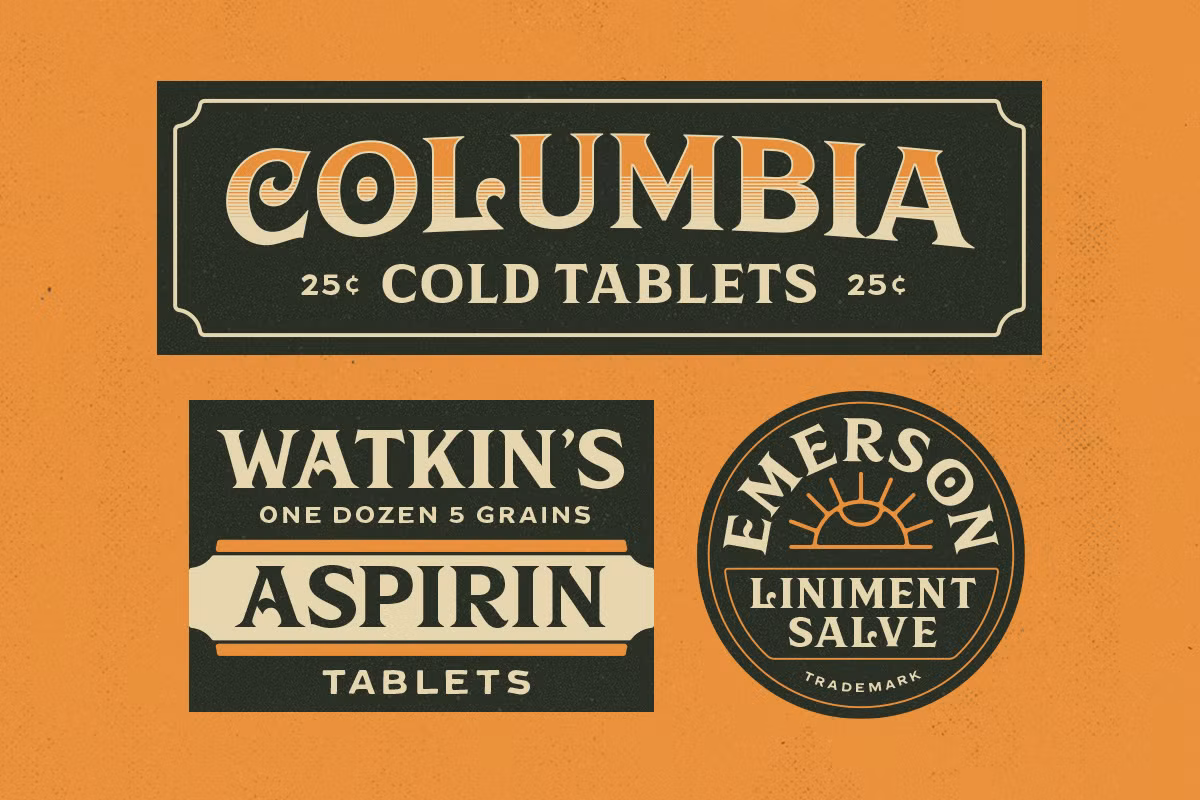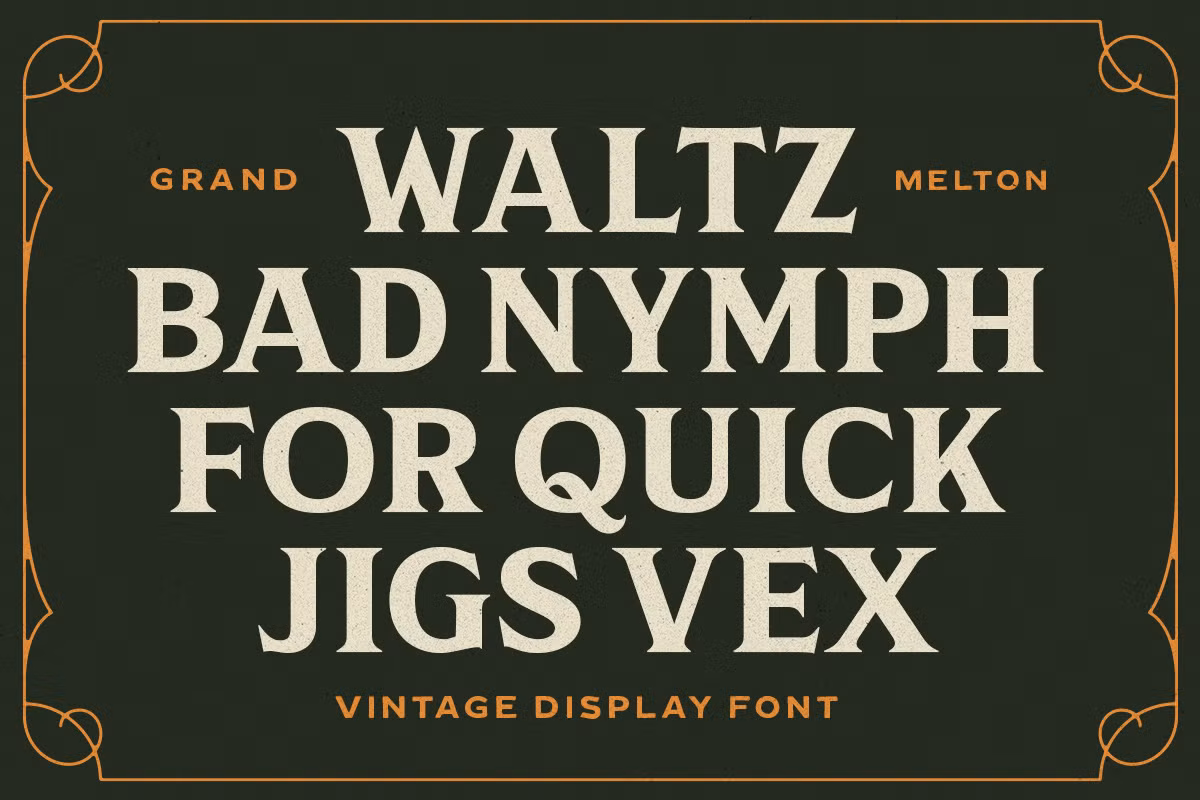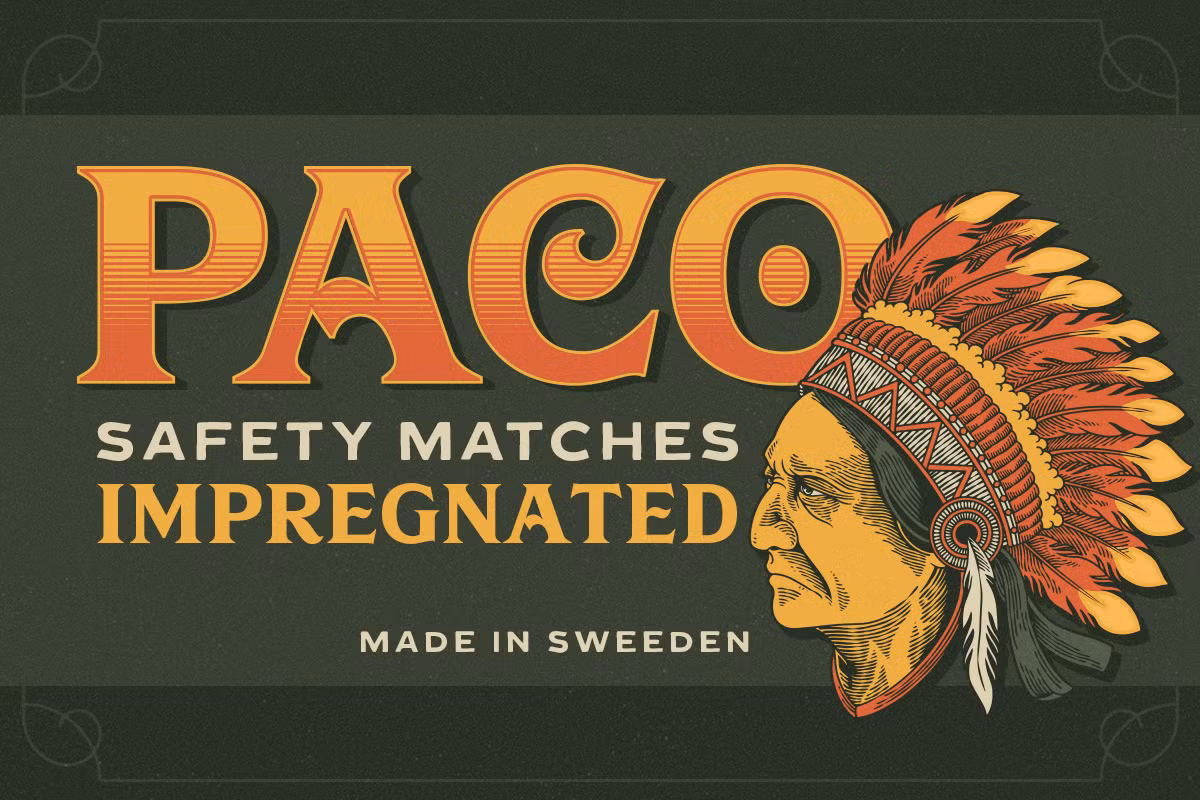
IC Grand Melton - Display Typeface
Introduction to IC Grand Melton
IC Grand Melton is a really cool font that looks like it was made a long time ago. It’s perfect for designers and people who love old-school style. You can use it to make all sorts of things like logos, t-shirts, and posters. It’s a great way to add some classic charm to your designs. The font is special because it was made to look like old typesetting styles, but it’s still unique and can help your work stand out. Whether you’re making something serious or just for fun, IC Grand Melton is a great choice. It’s like a blast from the past, but still really useful today.
Vintage-inspired display typeface example
An example of the vintage-inspired IC Grand Melton typeface.
Design Style of IC Grand Melton
The IC Grand Melton design really catches your eye because it mixes old and new styles together. Its font is reminiscent of classic typography, with its unique curves, strong lines, and sophisticated details. This blend of old and new makes it a great choice for all sorts of design projects – it works just as well in a retro setting as it does in a modern one. The classic elements give it a timeless feel, while the contemporary touches keep it fresh and exciting. Overall, IC Grand Melton’s style is pretty versatile, making it easy to incorporate into a wide range of designs.
IC Grand Melton is really versatile, which is one of its best features. It works great for big display sizes, so it’s perfect for headlines and titles that need to grab your attention. The character set is also really comprehensive, which means it can handle all sorts of text, from simple phrases to complex branding messages. This makes it a great choice for a wide range of uses. Whether you need to make a big impact with a headline or convey a more nuanced message, IC Grand Melton is up to the task. Its flexibility and range of uses are just a few reasons why it’s such a popular choice.
Close-up of IC Grand Melton font details
Details of IC Grand Melton showcasing its unique curves.
Use Cases for IC Grand Melton
IC Grand Melton is an incredibly versatile typeface that fits a multitude of graphic design applications. Here are some notable use cases:
• Branding Materials: Perfect for logos and business cards, IC Grand Melton can help establish a brand’s identity with its vintage flair.
• Apparel Design: The bold style of this font really makes it pop on clothes, which is why it’s a great pick for creating your own custom t-shirt designs.
• Signs and Posters: Signs and posters, no matter if they’re for events, ads, or art projects, can really grab your attention when they use IC Grand Melton.
• Quotes and Typography Art: This typeface is ideal for creating visually appealing quote graphics that resonate with viewers.
By incorporating IC Grand Melton into your projects, you can ensure that your designs not only capture attention but also convey a sense of nostalgia and authenticity.
IC Grand Melton in use for typography art
IC Grand Melton used in typography art for visual appeal.
Pairing Suggestions with IC Grand Melton
When working with IC Grand Melton, pairing it with complementary typefaces can enhance your design and ensure visual harmony. Here are some effective pairing suggestions:
• You can pair IC Grand Melton with simple, modern fonts like Montserrat or Open Sans. This mix lets the old-fashioned feel of IC Grand Melton stand out, while the sans serif fonts keep things clean and easy to read.
• For a classic, high-end look, try pairing serif fonts together, like combining it with Playfair Display. This mix can create a timeless feel that’s perfect for luxury branding.
• To add a personal touch, use a handwritten font alongside IC Grand Melton for unique designs.
If you decide to use IC Grand Melton in your projects, you need to know about the licensing options. This font has two versions: Grand Melton Regular and Grand Melton Outline. Both of these versions are available in OTF and TTF formats.
IC Grand Melton is not just a font, it’s a way to add some old-school style to your designs. This typeface has some really cool features that make it perfect for lots of different projects, like creating a brand or making cool apparel. The people who made it were really careful to make sure it looks great on its own, but also works well with other fonts. If you take the time to learn about the rules for using it and think about all the different ways you can use it, you can really get the most out of IC Grand Melton in your creative work. So go ahead, use this beautiful font, and give your designs a classic touch!
Final design using IC Grand Melton typeface
Final design showcasing the versatility of IC Grand Melton.